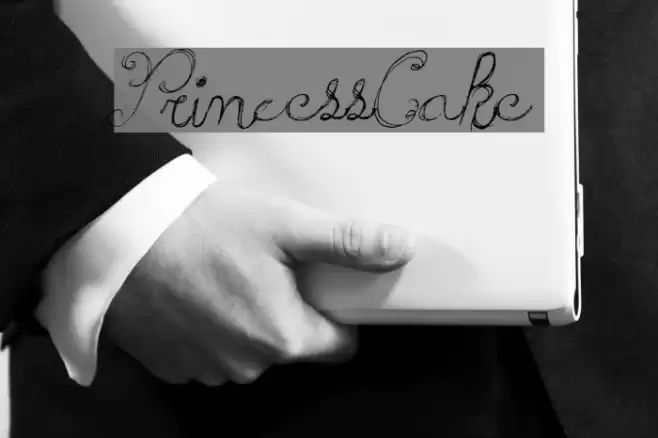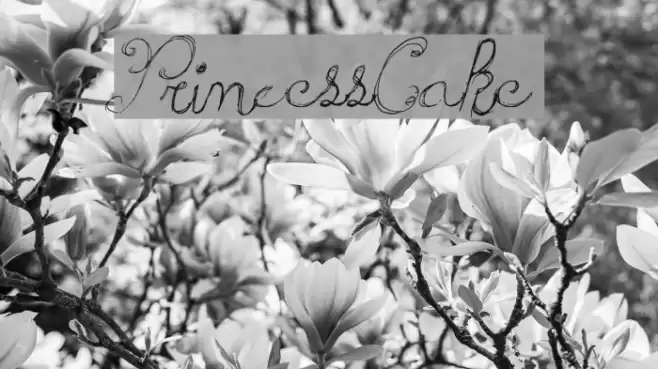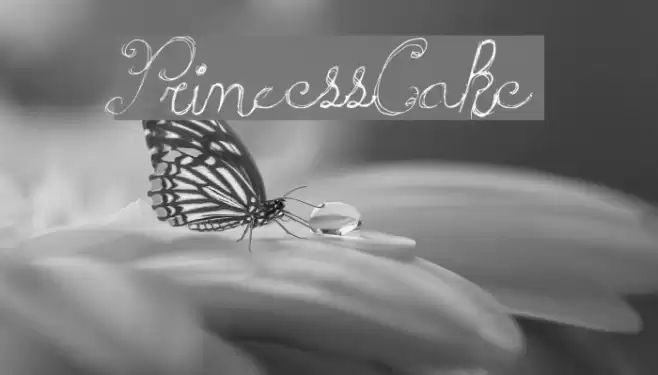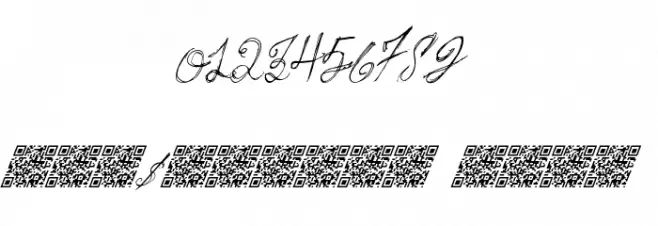
PrincessCake Font
PrincessCake Description
This font is an elegant and intricate script style, characterized by its flowing and ornate letterforms. Each character is adorned with delicate swirls and flourishes, giving it a whimsical and romantic appearance. The uppercase letters are particularly elaborate, featuring loops and curls that extend beyond the basic letter shapes. The lowercase letters maintain a consistent style, though they are slightly simpler, allowing for readability while still retaining the decorative essence. The numerals and special characters are designed to match the overall aesthetic, ensuring a cohesive look across all text. This font is ideal for creating a sense of sophistication and charm.
An elegant, ornate script font with flowing swirls and flourishes from Uncategorized fonts.
- Proposed Projects: Wedding invitations, luxury branding, greeting cards, and decorative posters.
- Use Case: Logos, Invitations, Decorative text